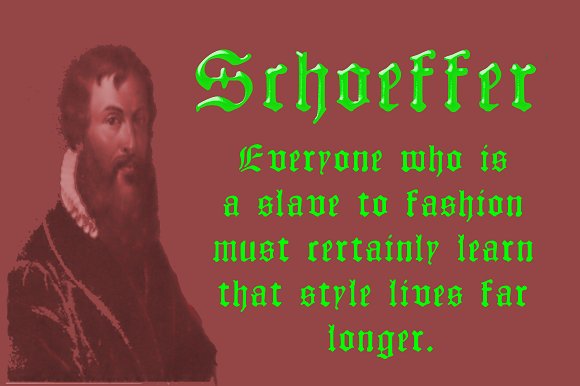
Schoeffer Font
About Schoeffer Font
Peter Schoeffer was a printer who was apprenticed to Gutenburg and after leaving Gutenburg in 1455 he set up shop with Facob Fust. His son, Peter the Younger, moved to Mainz and carried on the trade. This particular font is based on a typeface of Peter the Younger that was cut circa 1509-1520. This font has over 900 characters. While there are only about 80 in the historical exemplar the rest have been developed for modern usage. This font is based on Typ.7:146/148G also known as Gesellschaft für Typenkunde plate no. 258.